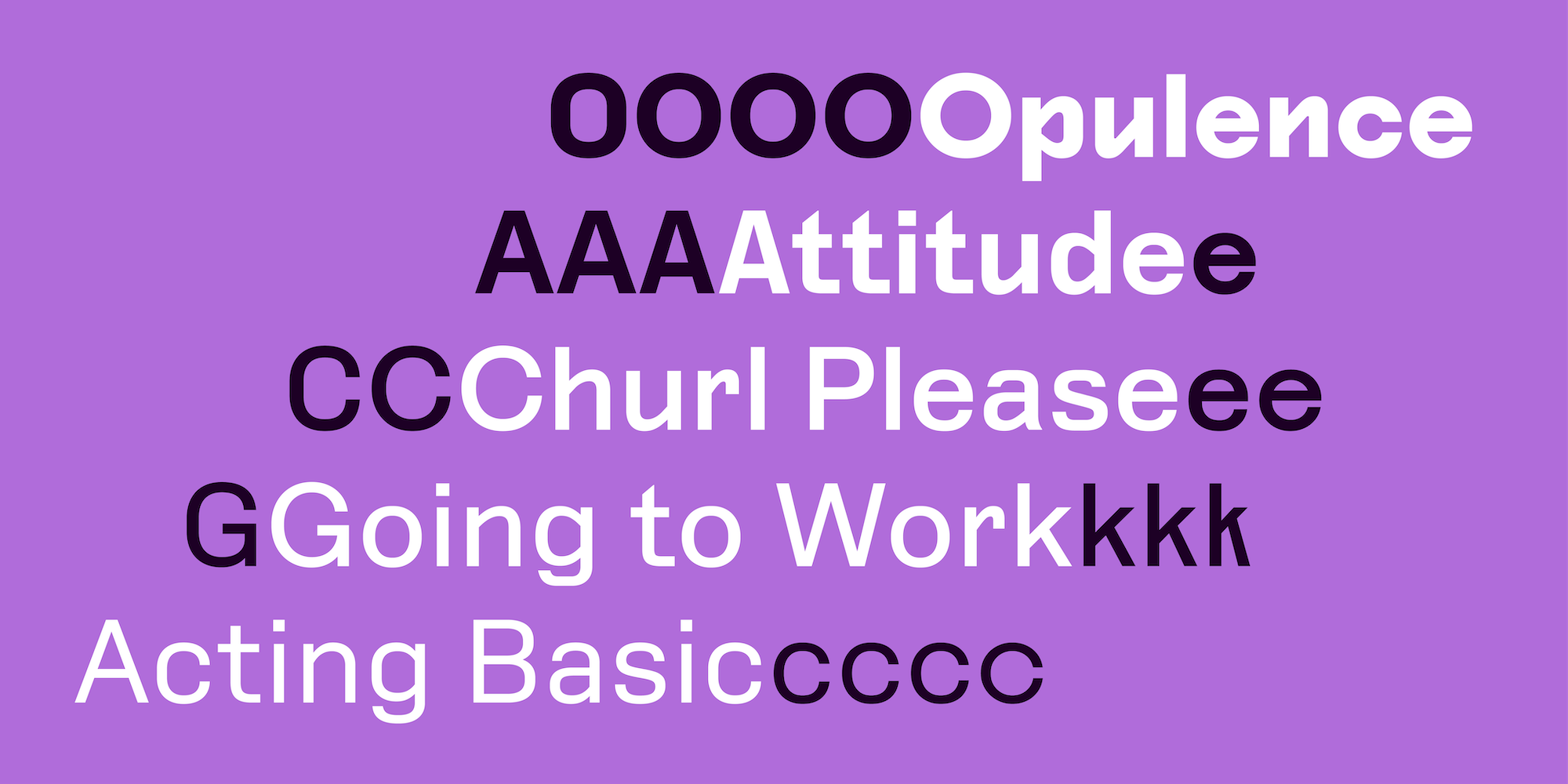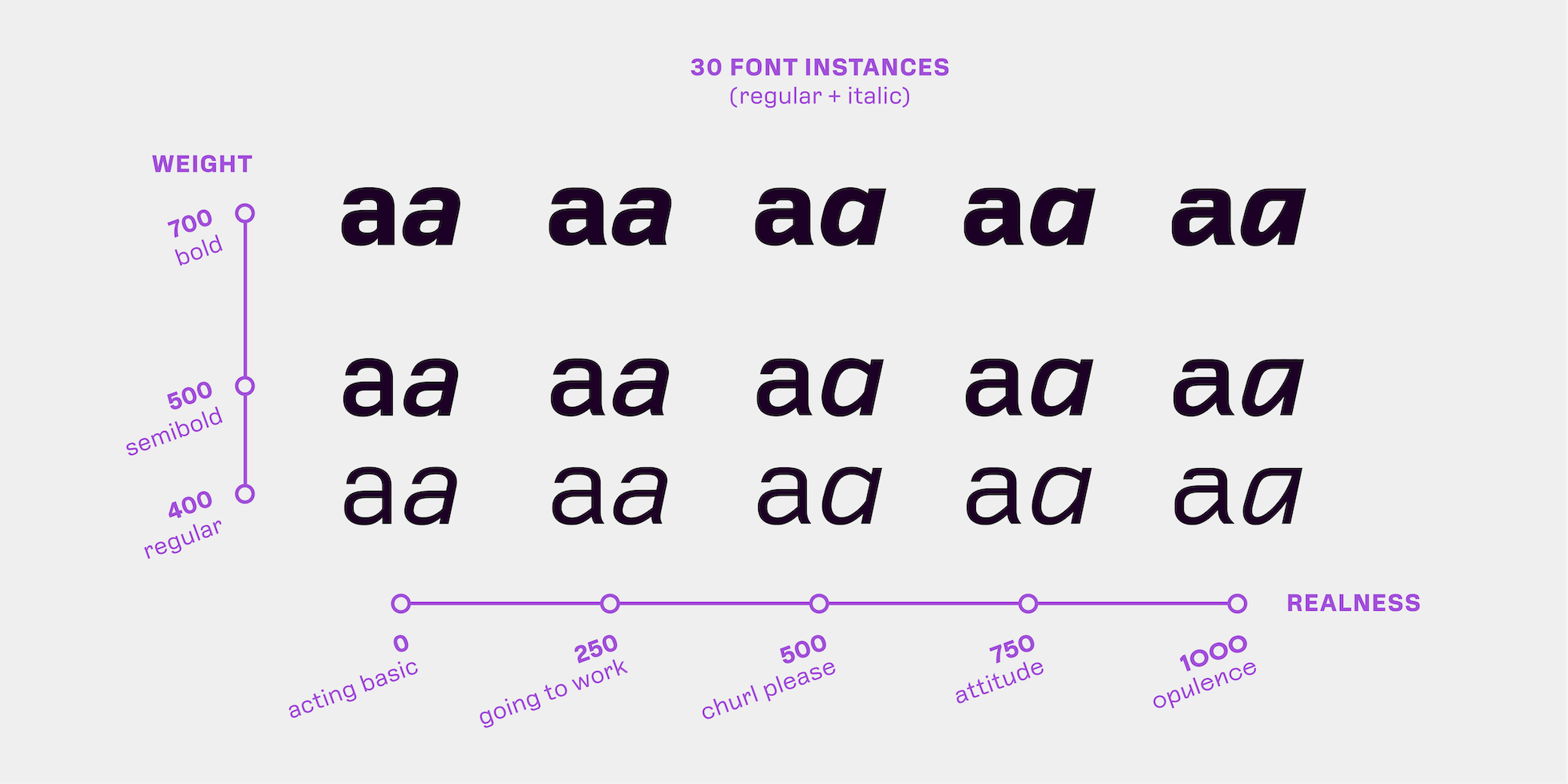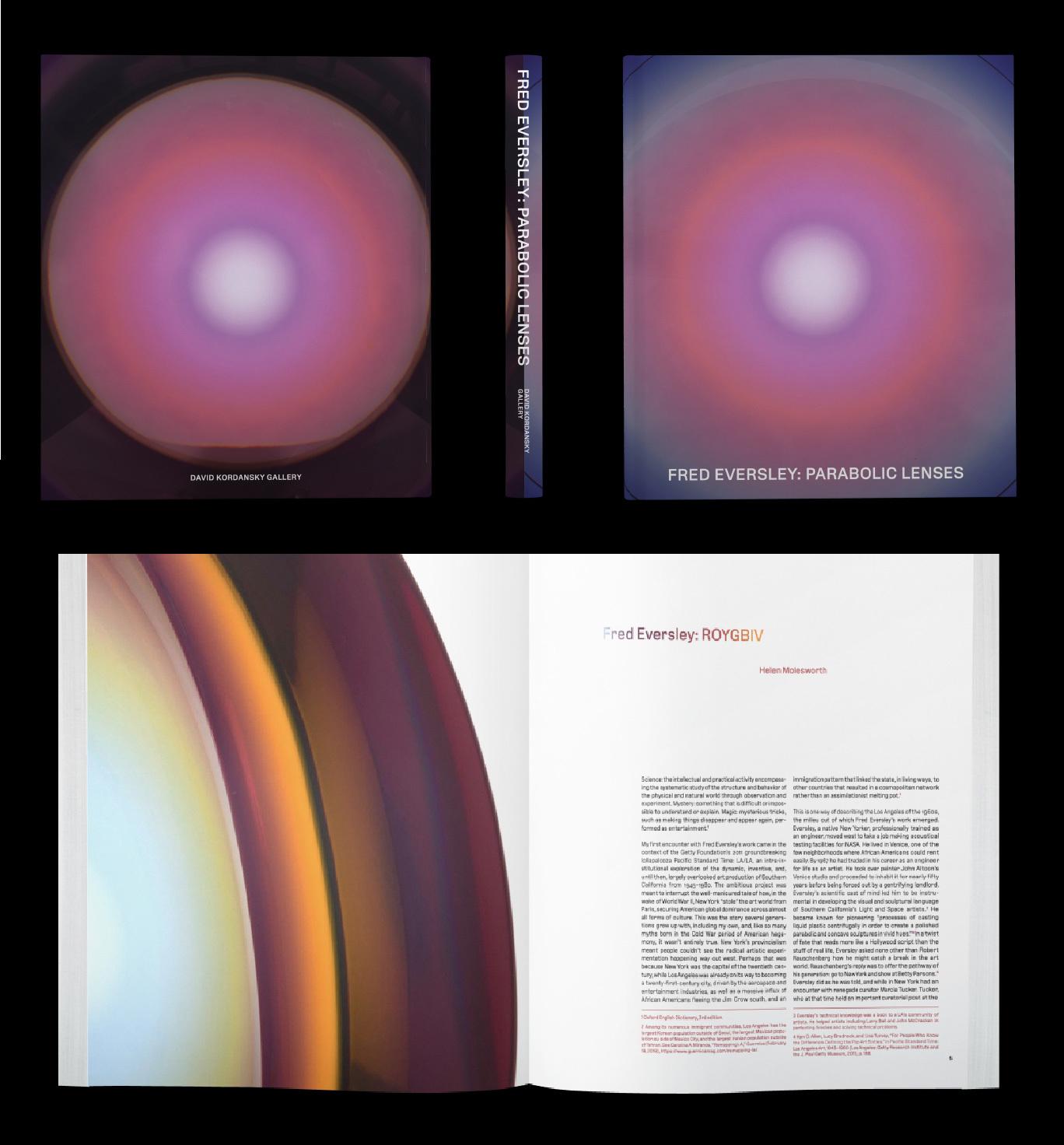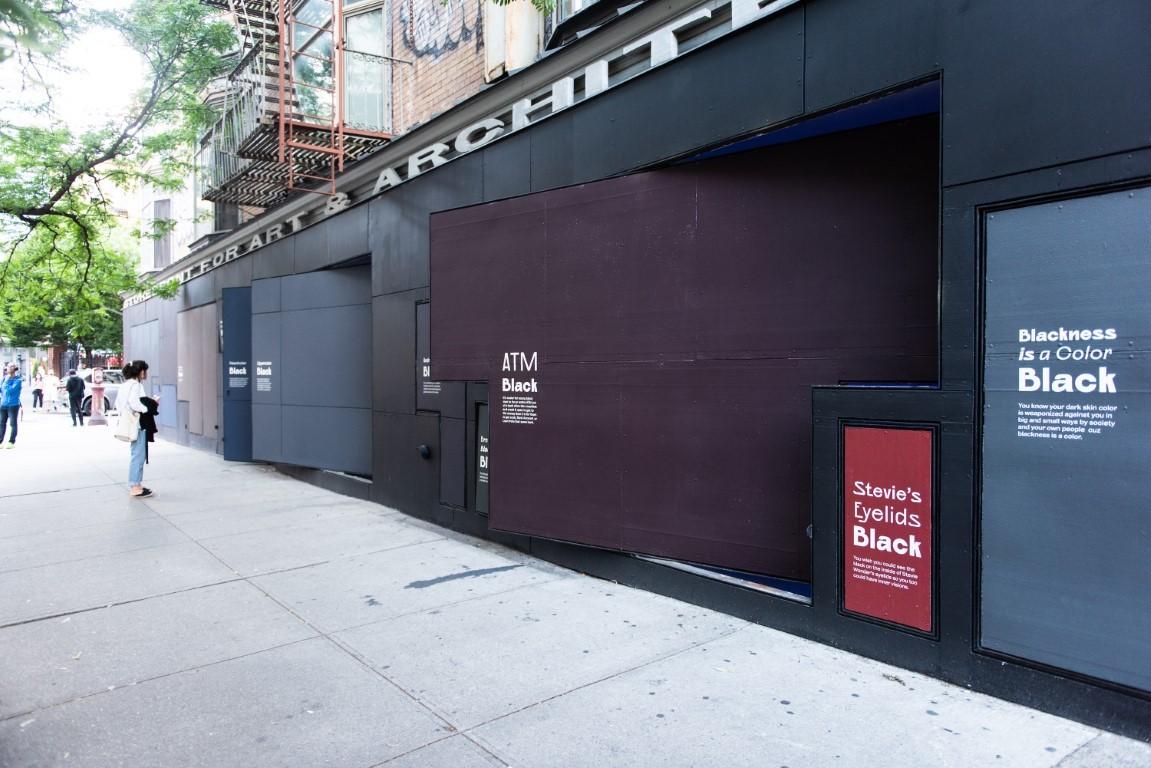
Ben Kiel and Jesse Ragan of XYZ Type “chase new ideas for typefaces that are as clever as they are technologically robust.” Meanwhile, Polymode weaves together diverse identities and frequently marginalized cultural aesthetics using a process they call “Poetic Research.” The combined approaches dig deep into history and unearth connections, all while paying attention to practical matters like grids, how many words fit the space, timelines, and production costs.
Poetic research takes into account the factual with the formal, the universal with the outsider… let it be lofty, let it be magical and ancestral… let it be funny with a divine kiss of queerness. It holds the space of a project searching for the details in archives, footnotes, and marginalia within the great force of history.
With this eclectic identity at its back, Polymode needed something that could be dialed into the full range of the work they produce: From art book design to exhibition design, interfaces, websites, identities, workshops, and everything in between. They had expressive needs and functional demands. They required something truly poly-modal to function in running text, art books, screens, captions, and displays. It needed the right amount of Friction—noticed, but not annoying—and the friction needed to increase with the optical size.
In other words, their brief called for the ultimate in terms of flexibility and functionality—all while capturing the “realness” of Polymode’s attitude.
Slides from the early discovery phase of the project: Collected images from Polymode’s inspiration folder, XYZ’s resultant brain dump of descriptive words and phrases, some of XYZ’s hand-lettering inspiration.
Ben Kiel and Jesse Ragan make useful, quietly offbeat fonts at their independent digital foundry, XYZ Type, which operates in the interwebs between St. Louis and New York.
With these inspirational guidelines in place, Ben & Jesse got to work researching a typeface whose basic traits wouldn’t veer far from established norms of proportion, weight, and contrast. It called for a decent x-height to work well on screens and at caption sizes. Above all the priority was the flexibility to dramatically change in tone across different use cases.
They ultimately came upon Lining Gothic, one of ATF’s 19th century numbered gothics. A straightforward sans serif, it also carries a few unique surprises: The hook of the lowercase “r,” for example, the sharp arches, and the simultaneously-flat-and-round descenders.
Lining Gothic specimen
Adherents to the notion that design is a means for precisely and adeptly solving specific problems, neither Ben nor Jesse are interested in doing anything “just because.” XYZ’s discovery process signaled a variable font as the best solution for truly meeting Polymode’s brief, landing on the question: “What if we took Lining Gothic and made it real plain on one end and made it real weird on the other?”
So was born Polymode Sans: A chameleon of a typeface that expresses points of view ranging from quietly buttoned-up to fiercely outrageous. These points of view find themselves moving along the font’s “realness axis”: They increase in their structural surprises as the realness increases. The typeface also contains a range of 30 different expressions along this axis for use as static fonts.
Polymode Studio gave Polymode-esque names to some of the stops along the realness axis: Acting Basic is a more reserved version of Lining Gothic; Going to Work, the contemporary revival of Lining Gothic, then Churl Please, Attitude, and Opulence round out the journey from plainness to maximum REALNESS.
Polymode immediately set to work using Polymode Sans in vastly disparate contexts. Acting Basic is featured in an art book featuring the work of artist Fred Eversley, commissioned by David Kordansky Gallery. Opulence is on full display in Amanda Williams’s work of public art for Storefront for Architecture, What is this Black You Say?
Fred Eversley: Parabolic Lenses David Kordansky Gallery